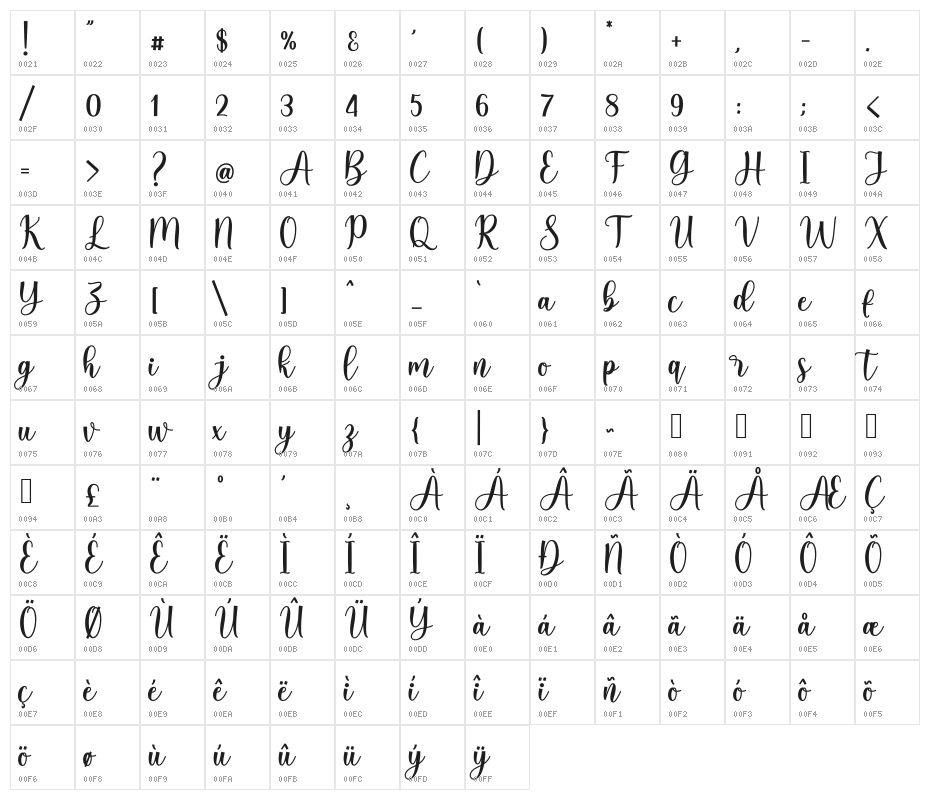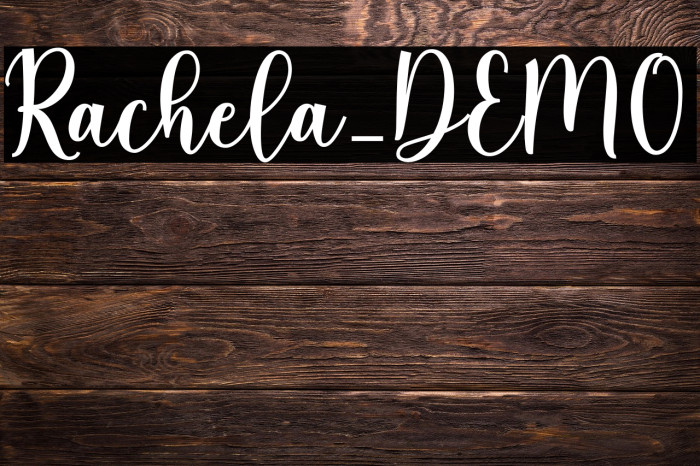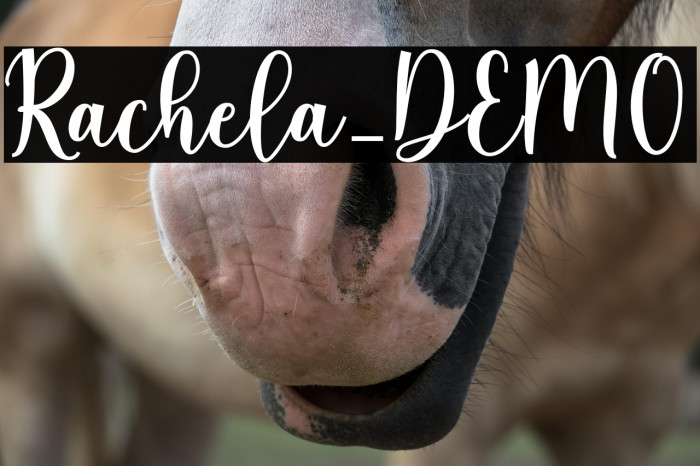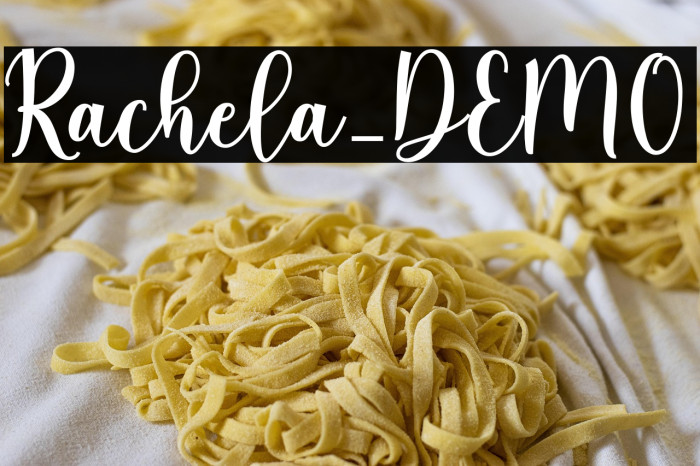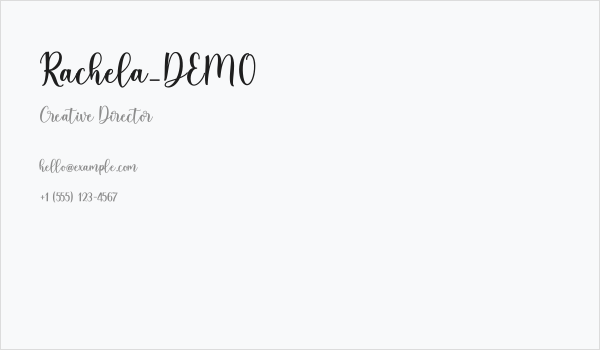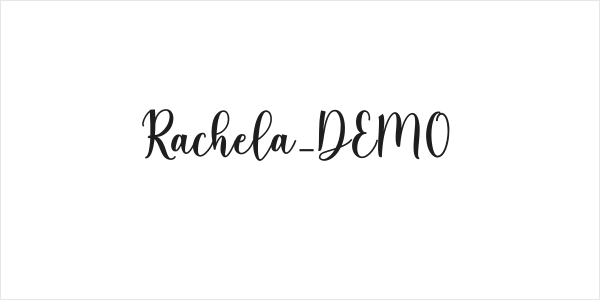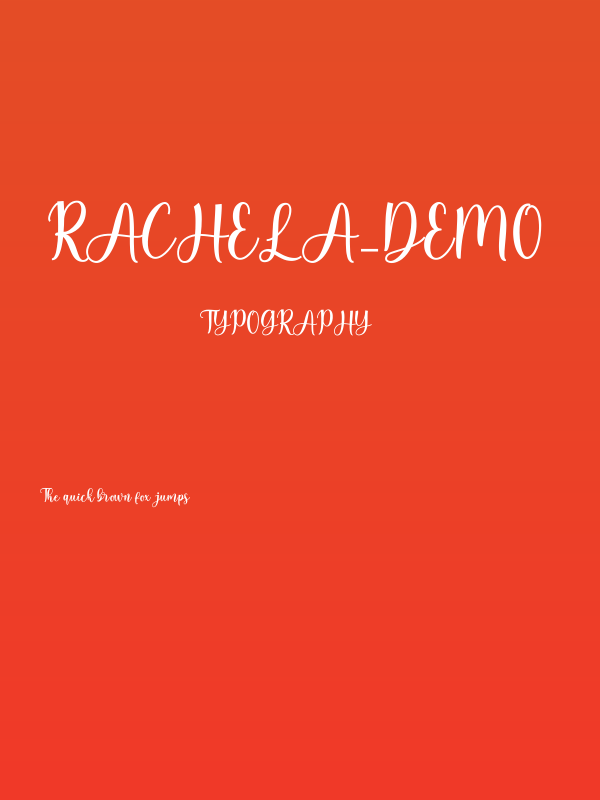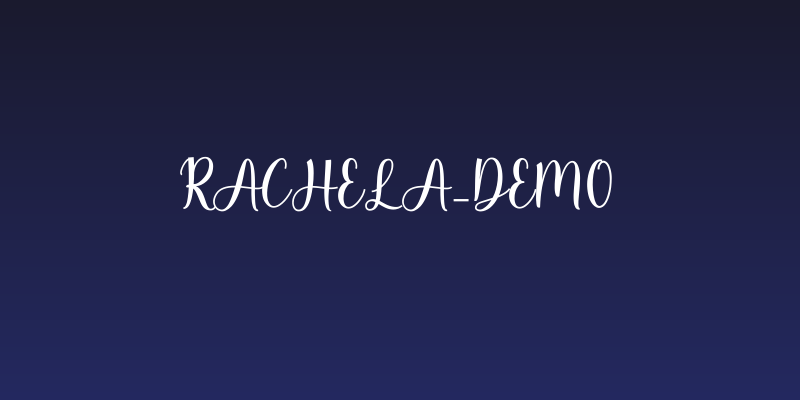
Rachela_DEMO Font
Rachela_DEMO Description
This font features a lively and flowing script style, characterized by its elegant and cursive letterforms. The uppercase letters are particularly ornate, with sweeping curves and loops that give a sense of movement and grace. The lowercase letters maintain a consistent flow, complementing the uppercase with their rounded and connected strokes. Numbers and special characters are designed to match the overall aesthetic, with a playful yet sophisticated appearance. The font's design is both modern and timeless, making it versatile for various creative applications.